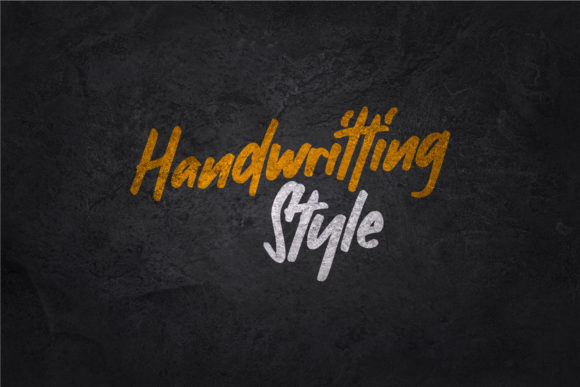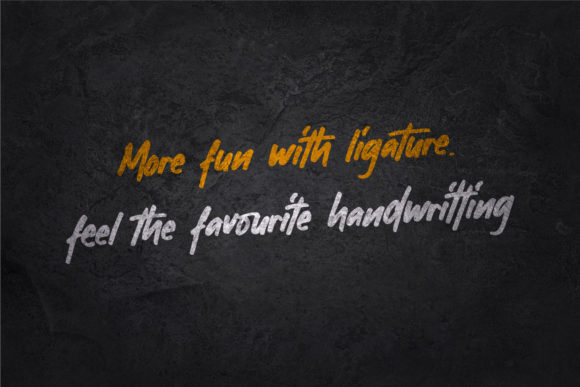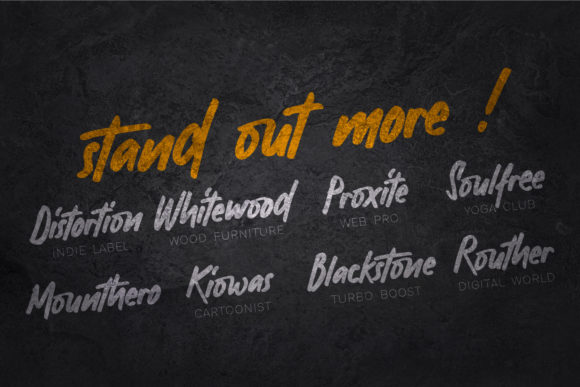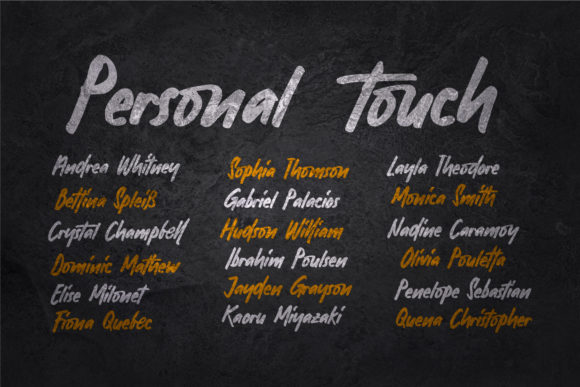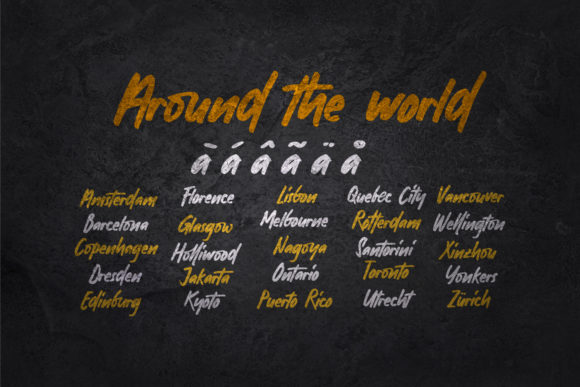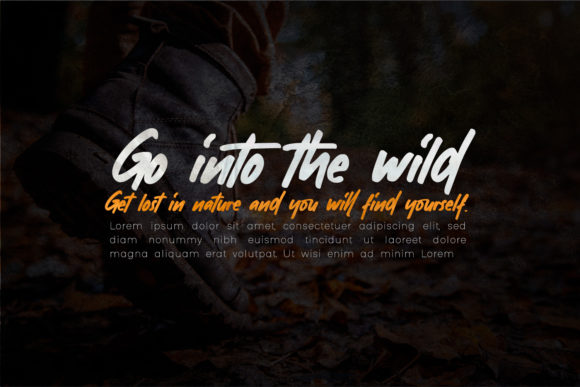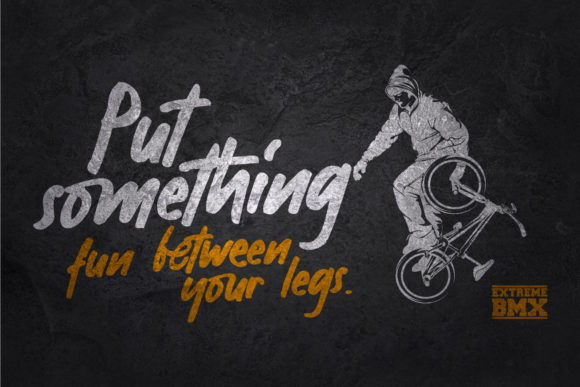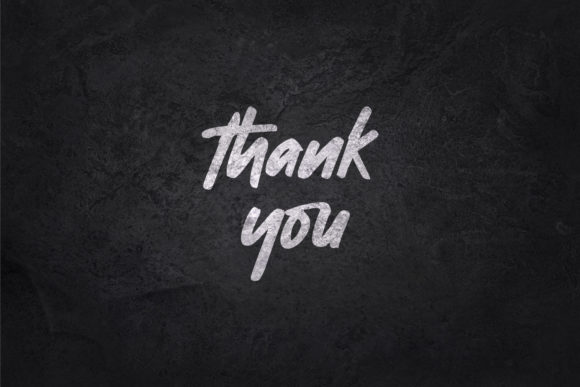
Youthink Font
About Youthink Font
Youthink is a gorgeous handwritten font. It is PUA encoded which means you can access all of the glyphs and swashes with ease! It features a varying baseline, smooth lines, gorgeous glyphs and stunning alternates.
Fall in love with its incredibly versatile style and use it to create gorgeous wedding invitations, beautiful stationary art, eye-catching social media posts, and much more!